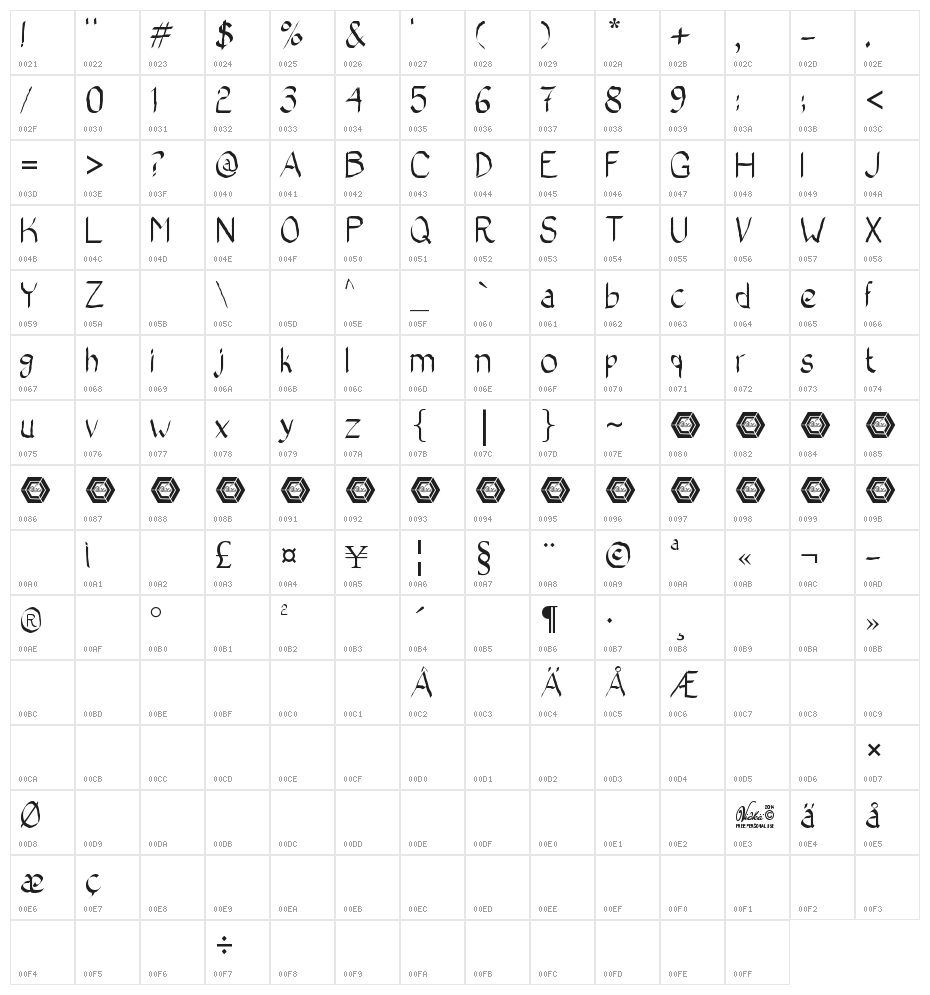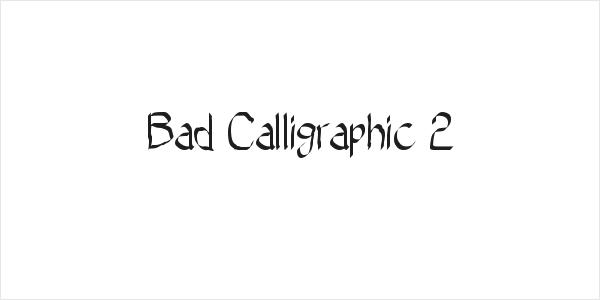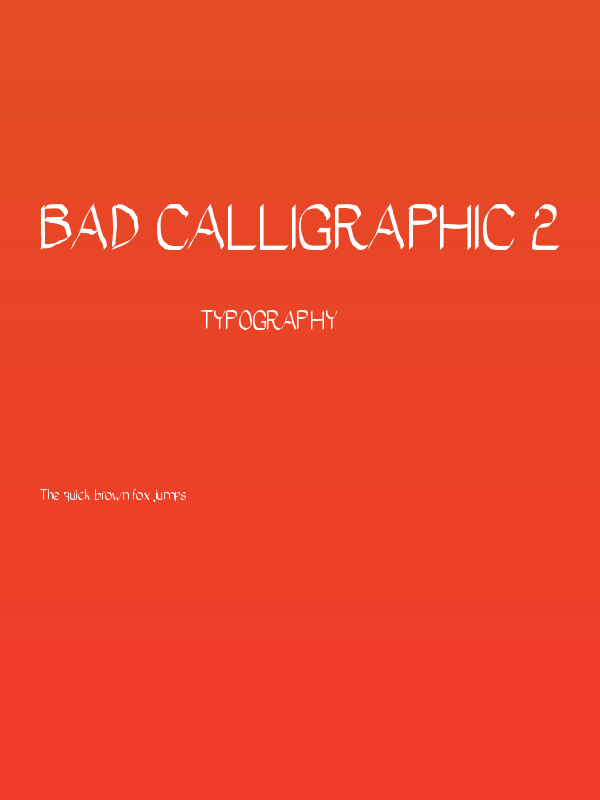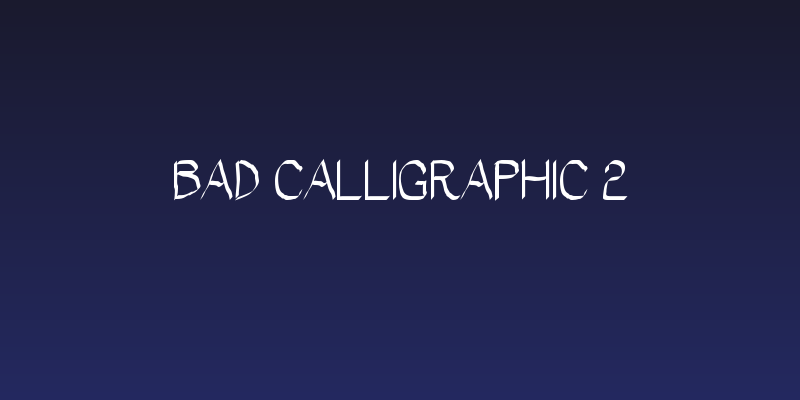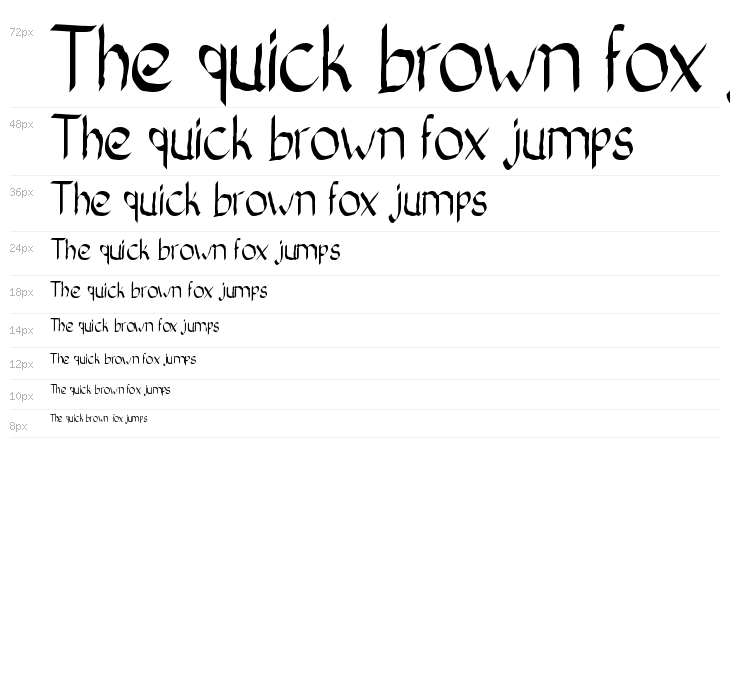
Bad Calligraphic 2 Font
Bad Calligraphic 2 Description
This font exhibits a unique calligraphic style with a bold and artistic flair. The characters are crafted with sharp, angular strokes that give them a dynamic and edgy appearance. The uppercase letters are tall and commanding, while the lowercase letters maintain a consistent flow, adding to the overall elegance of the design. The numerals are distinct and easily readable, complementing the alphabetic characters. Special characters are creatively integrated, maintaining the font's artistic integrity. This font is ideal for projects that require a touch of sophistication and creativity, such as invitations, logos, and artistic posters.
| Use Case | Logos, Artistic posters, Invitations |
| Proposed Projects | Ideal for invitations, logos, artistic posters, and creative branding. |